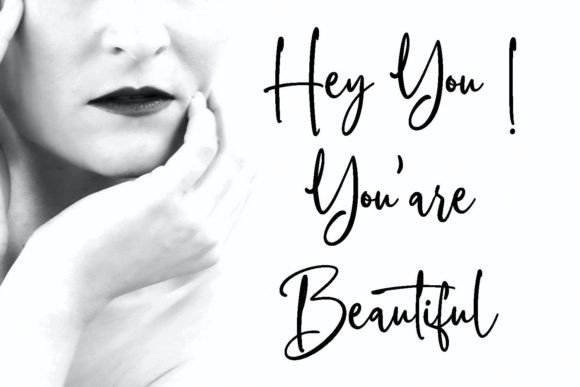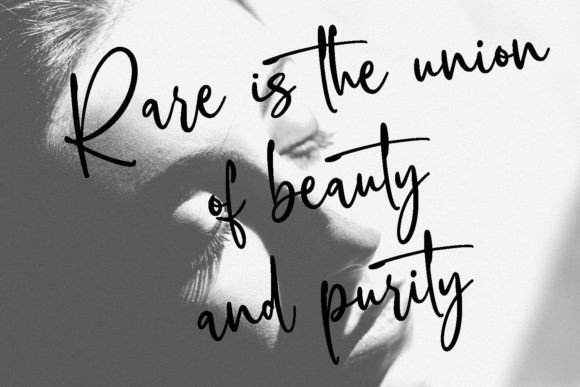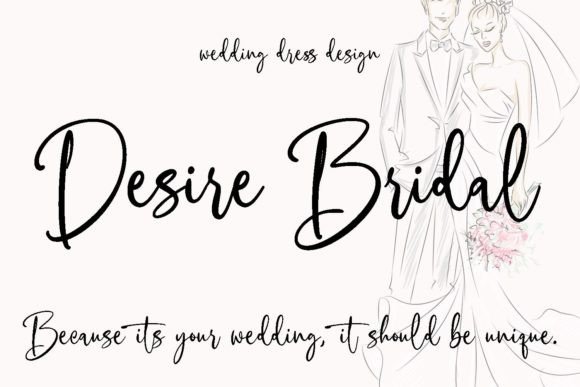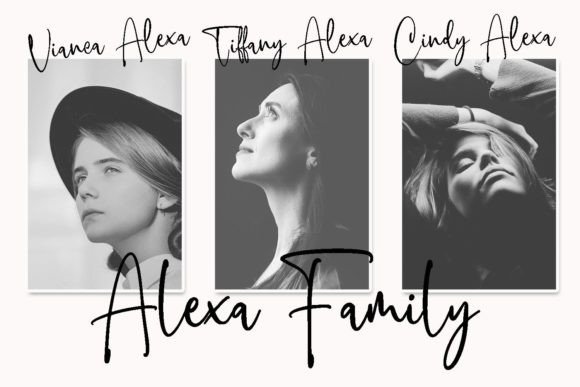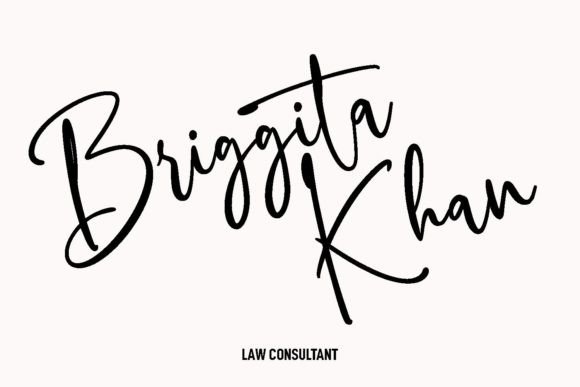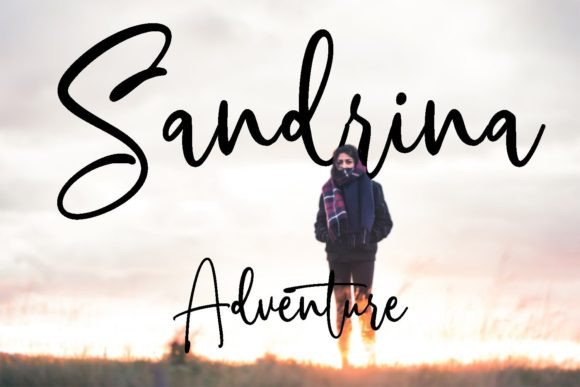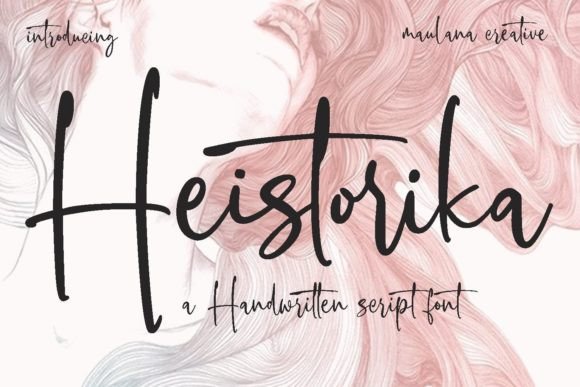
Introducing Heistorika Font: Elevate Your Designs with Elegance and Flair
In the world of typography, a font can make or break a design. For those seeking a touch of sophistication and whimsy, Heistorika Font is an exceptional choice. This ink-is fancy handwritten script font is designed to add a unique flair to your projects, making it perfect for a variety of applications. In this article, we’ll dive into the features and benefits of Heistorika Font, and explore how it can elevate your designs.
The Characteristics of Heistorika Font
Heistorika Font boasts an upright style with light contrast strokes, giving it a distinctive and elegant appearance. The fun characters, complete with ligatures and alternates, add a playful touch that’s sure to capture attention. The font’s design is carefully crafted to provide a balance of sophistication and creativity, making it an excellent addition to any design project.
What Makes Heistorika Font Stand Out
• Unique Style: Heistorika Font’s upright style with light contrast strokes sets it apart from other script fonts.
• Fun and Playful: The font’s characters, ligatures, and alternates add a touch of whimsy and fun to any design.
• Versatile: Heistorika Font is suitable for a wide range of applications, from logo design to long text letters.
Use Cases for Heistorika Font
Heistorika Font’s versatility makes it an excellent choice for various design projects. Here are some use cases to consider:
• Logo Design: Create a lasting impression with a custom logo that incorporates Heistorika Font.
• Social Media: Elevate your social media presence with eye-catching graphics and posts featuring Heistorika Font.
• Movie and Book Titles: Add a touch of elegance to movie and book titles with Heistorika Font.
• Long Text Letters: Heistorika Font is suitable for longer text passages, making it perfect for articles, blog posts, and more.
• Secondary Text Font: Pair Heistorika Font with sans or serif fonts to create a visually appealing contrast.
Tips for Working with Heistorika Font
To get the most out of Heistorika Font, consider the following tips:
• Experiment with Ligatures and Alternates: Take advantage of the font’s ligatures and alternates to add visual interest to your designs.
• Pair with Complementary Fonts: Combine Heistorika Font with sans or serif fonts to create a harmonious contrast.
• Play with Color and Texture: Heistorika Font looks stunning with a range of colors and textures, so don’t be afraid to experiment.
Heistorika Font is a unique and versatile addition to any designer’s toolkit. Its elegant, yet playful style makes it perfect for a wide range of applications, from logo design to long text letters. With its upright style, light contrast strokes, and fun characters, Heistorika Font is sure to elevate your designs and leave a lasting impression. So why wait? Get creative with Heistorika Font today and take your designs to the next level!